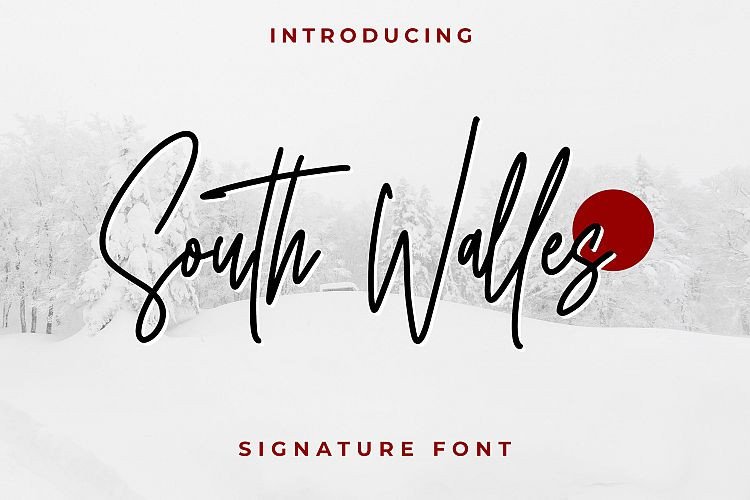
South Walles Signature Font
An Luxury signature typeface by Abraham Type. A new modern signature with elegant lines make this font perfect for your personal branding and any awesome project! Introducing South Walles Font. Created from naturally handwritten, it will make your design more beautiful. South Walles Signature can be used for any variety of purposes, such as: photography, Wedding Ceremony, Packaging Products, Logo Type, Branding Fashion, T-Shirt Design, Website/Blog, Magazine, Brochures and also can be used for personal purpose.